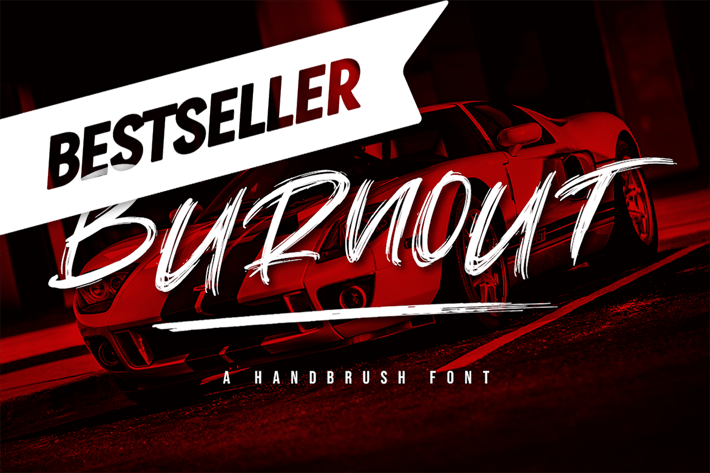
Handbrush Font
Introducing Burnout- A script font.
This unique font is designed to have an effect of drawing and handwriting. Fun, brave and beautiful at the same time, just like your website, your social media, your Pinterest banners and you!
Inspire others such as your audience, clients or guests with your unique font- Burnout!
Multilingual & Ligature Support
Full sets of Punctuation and Numerals